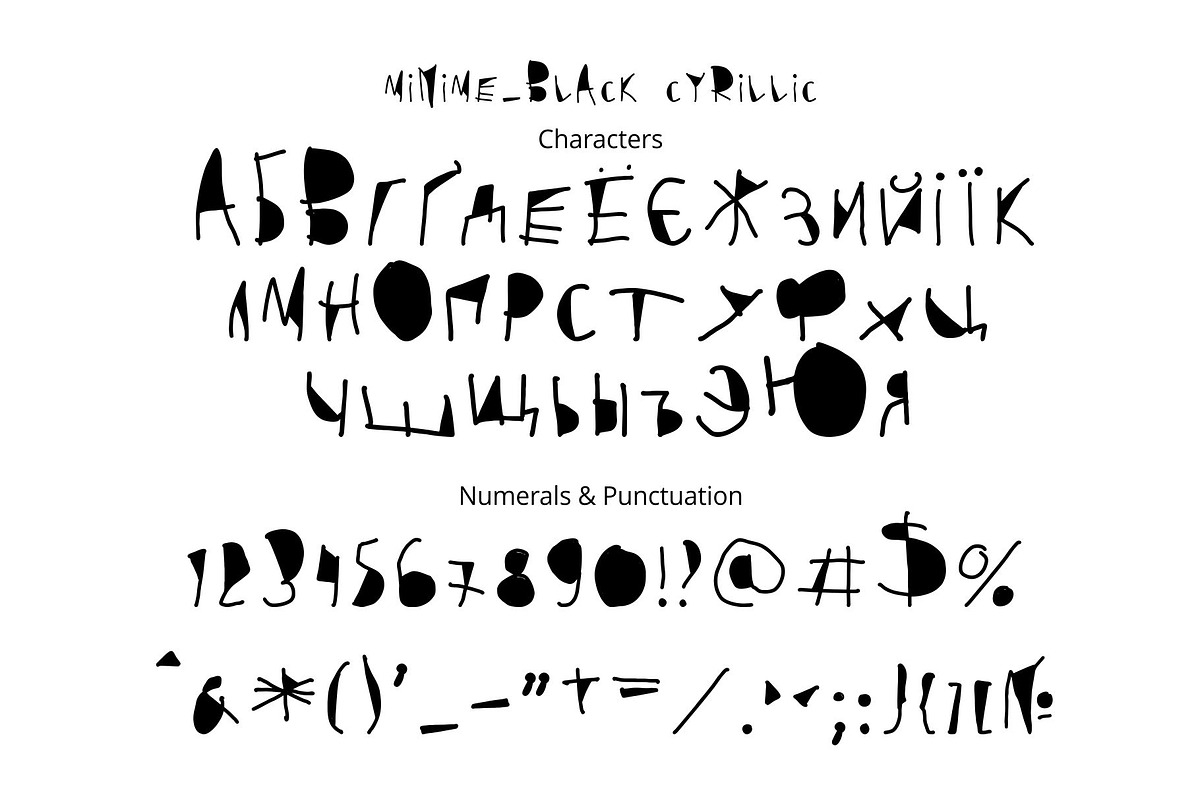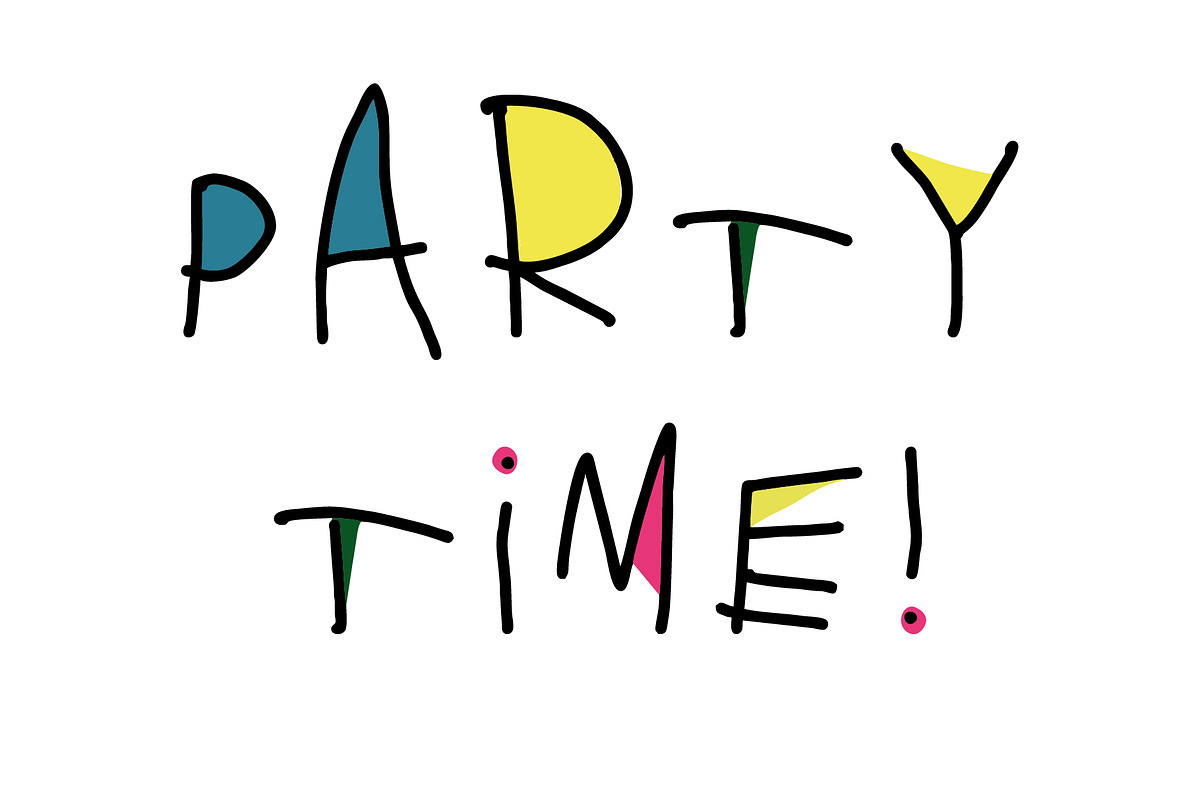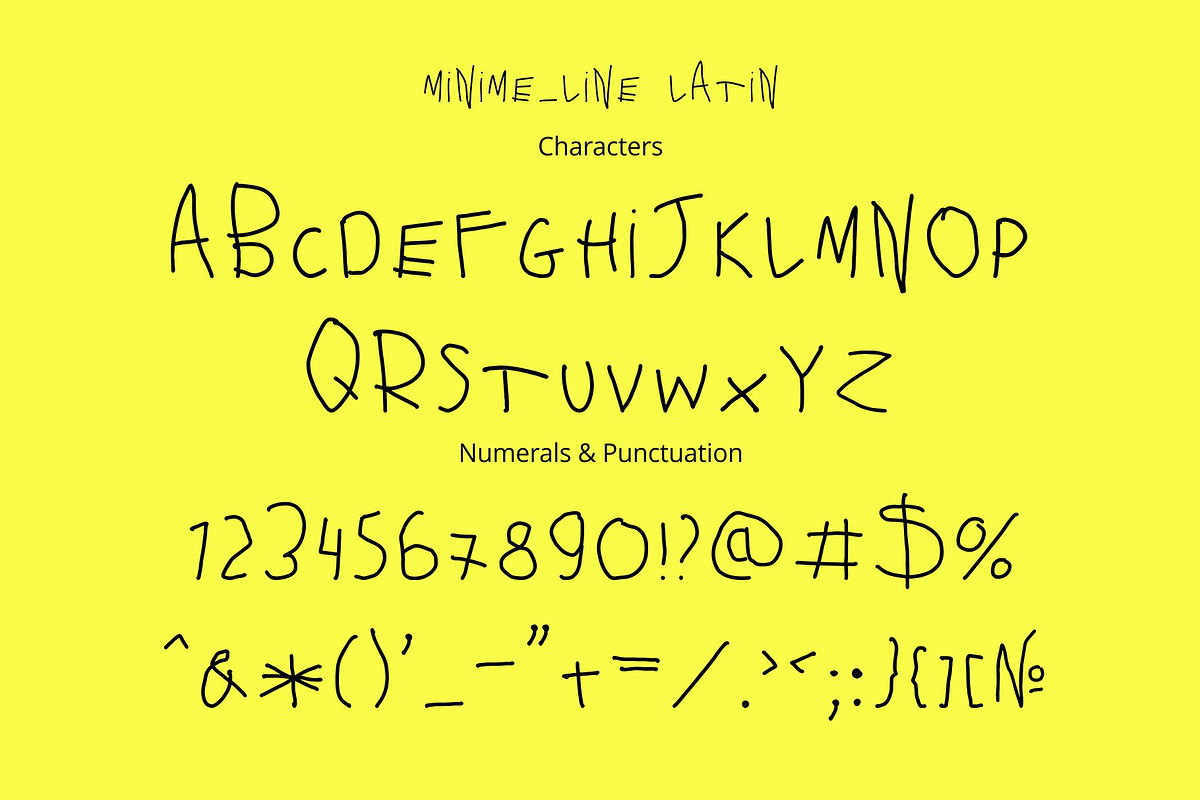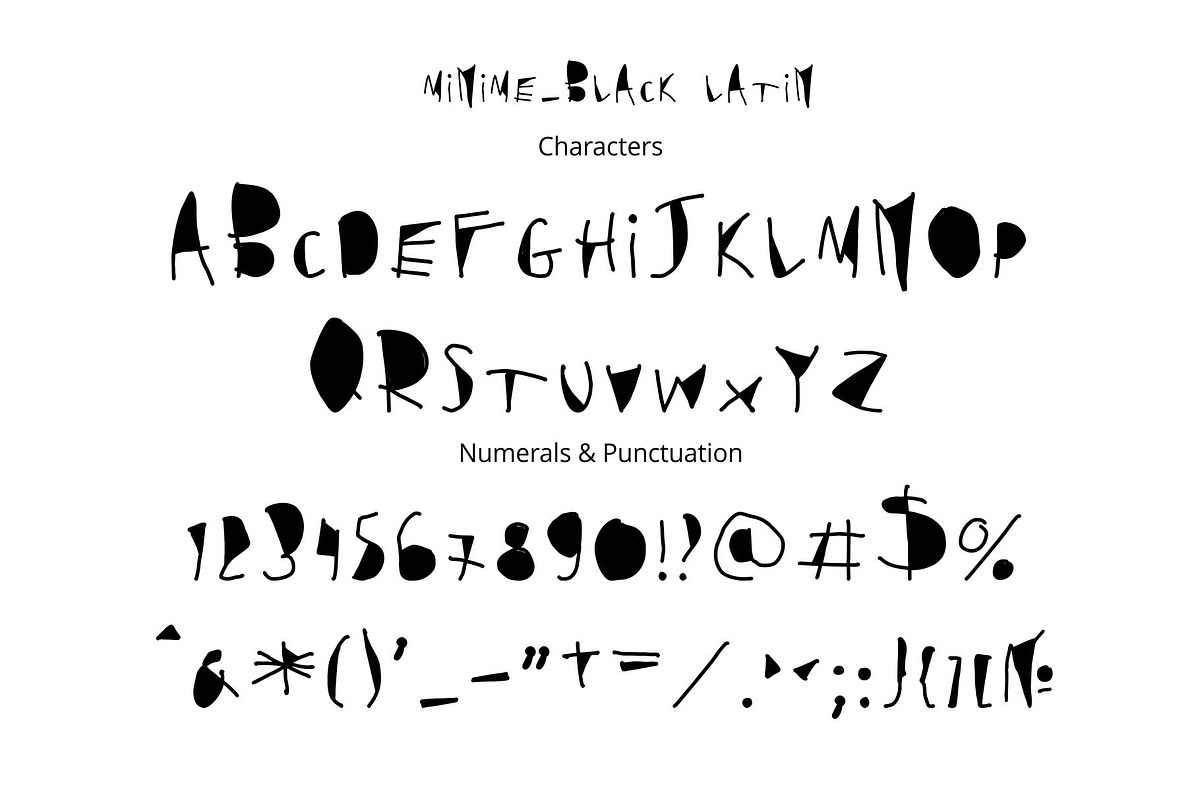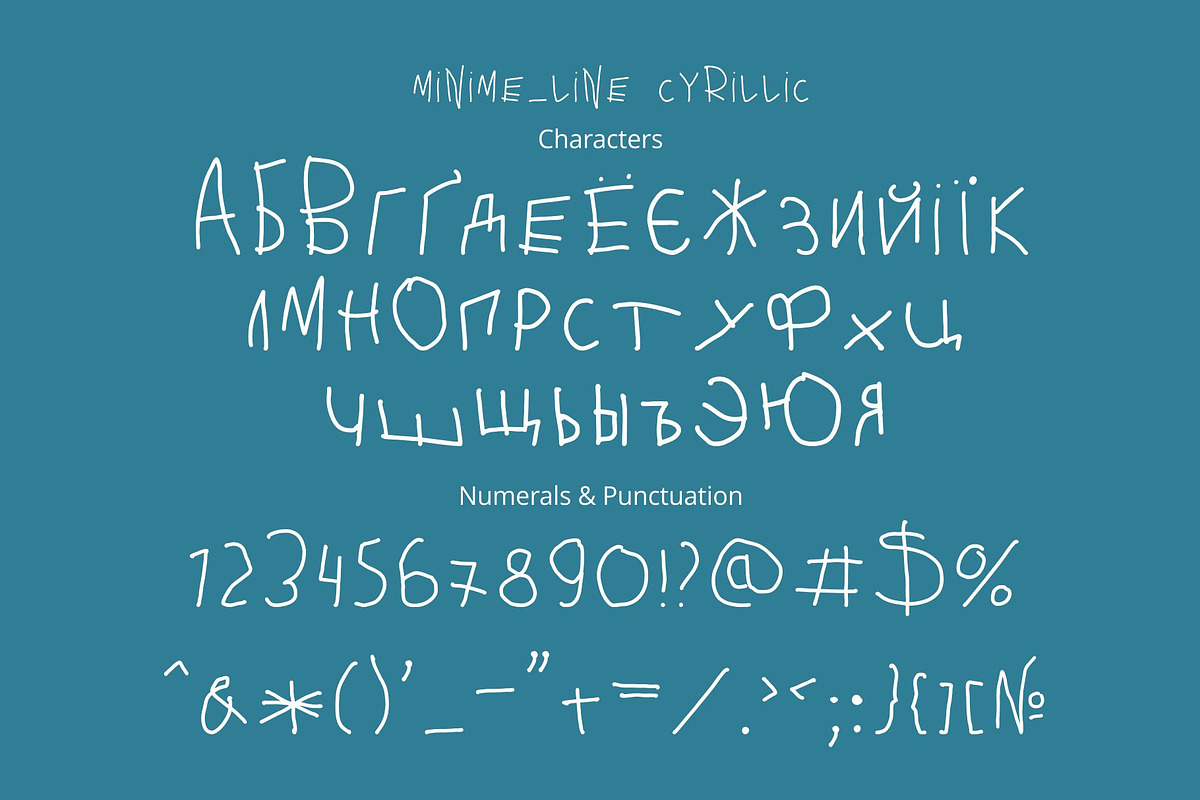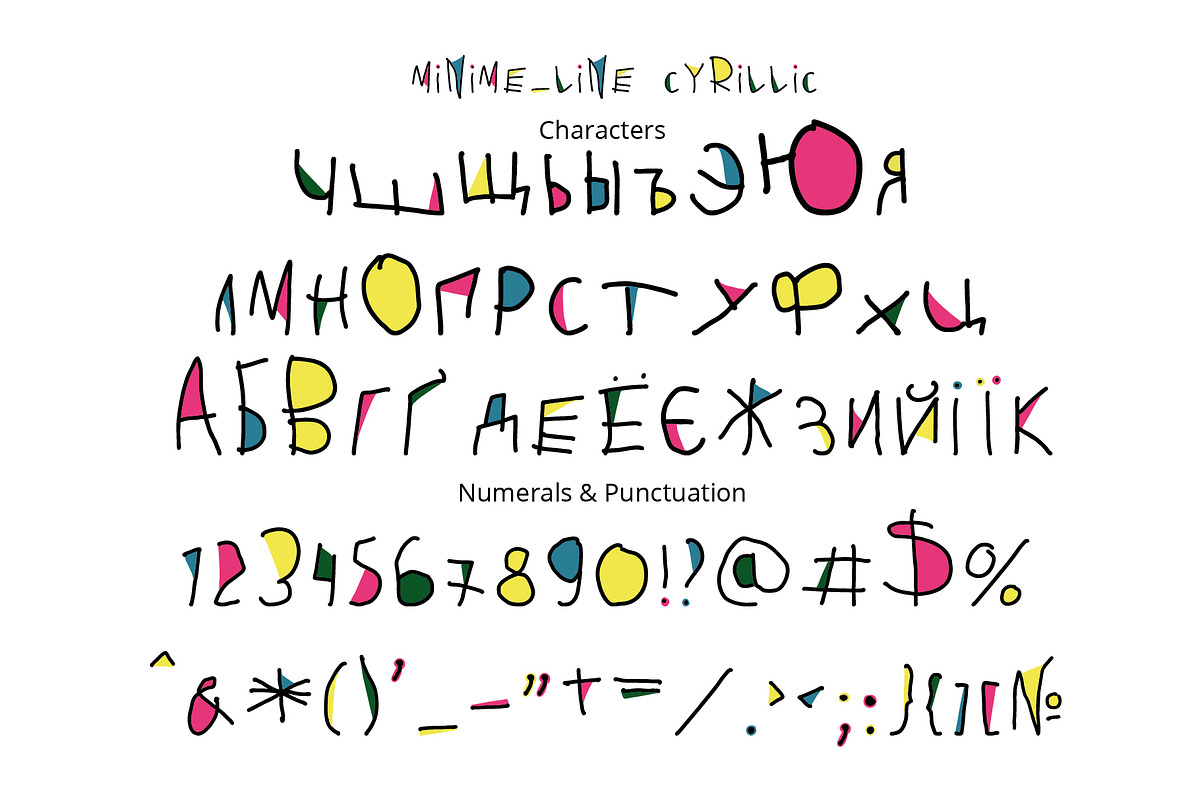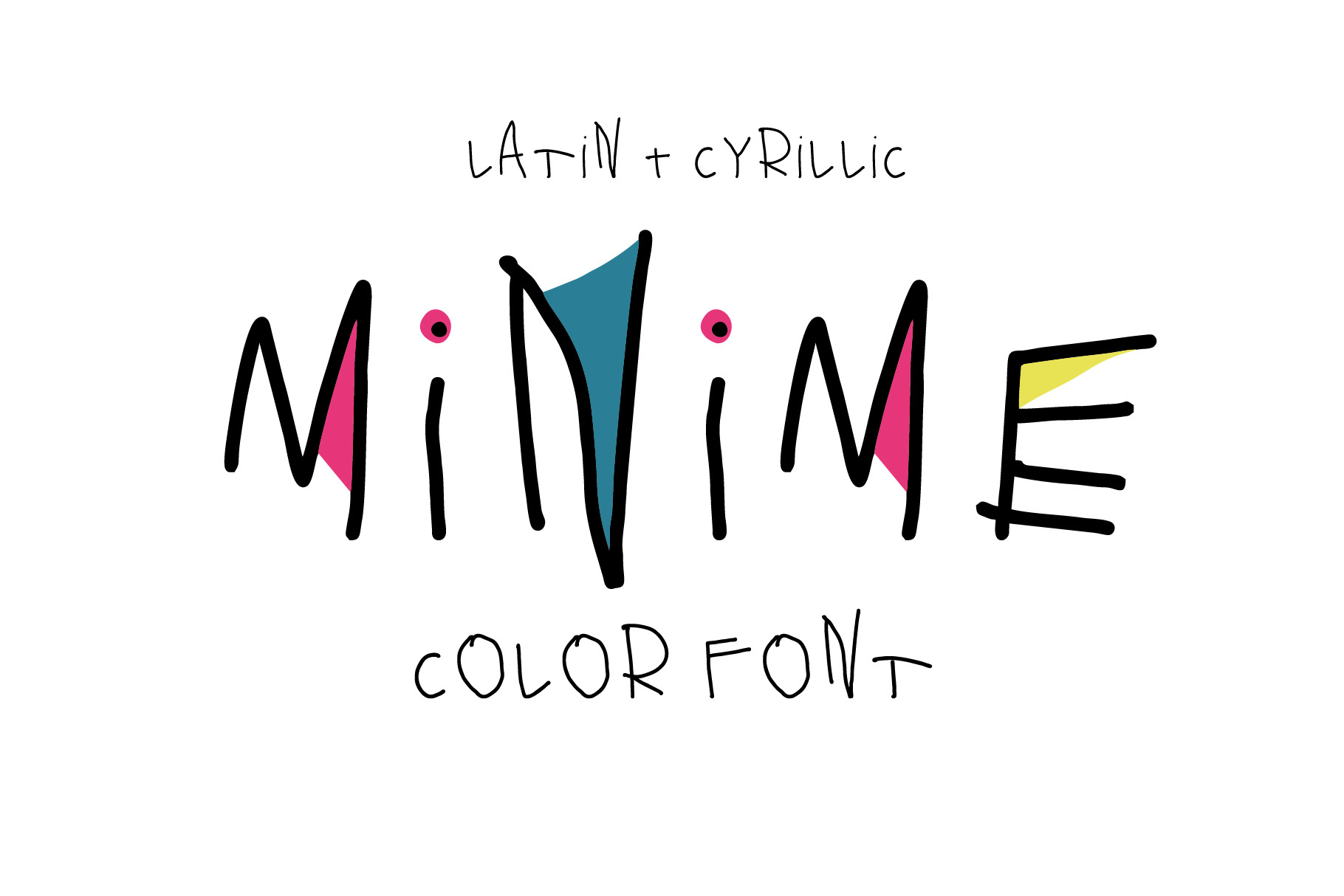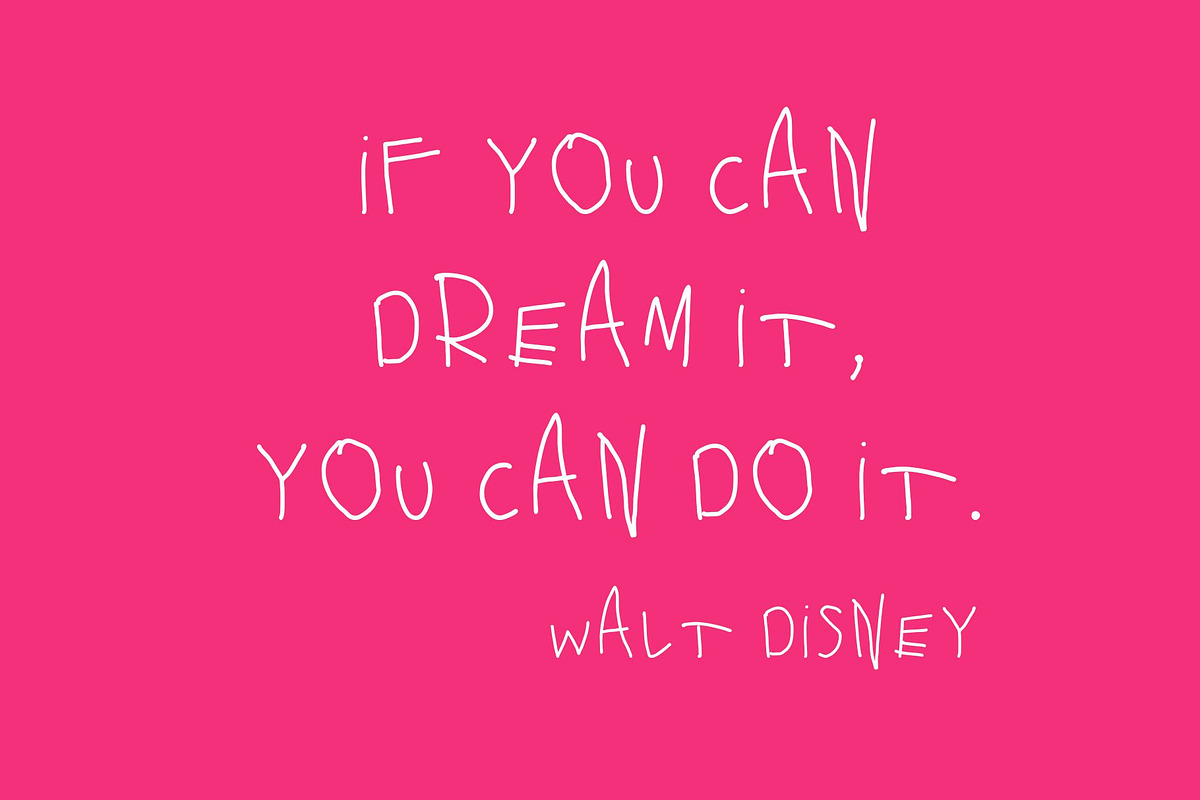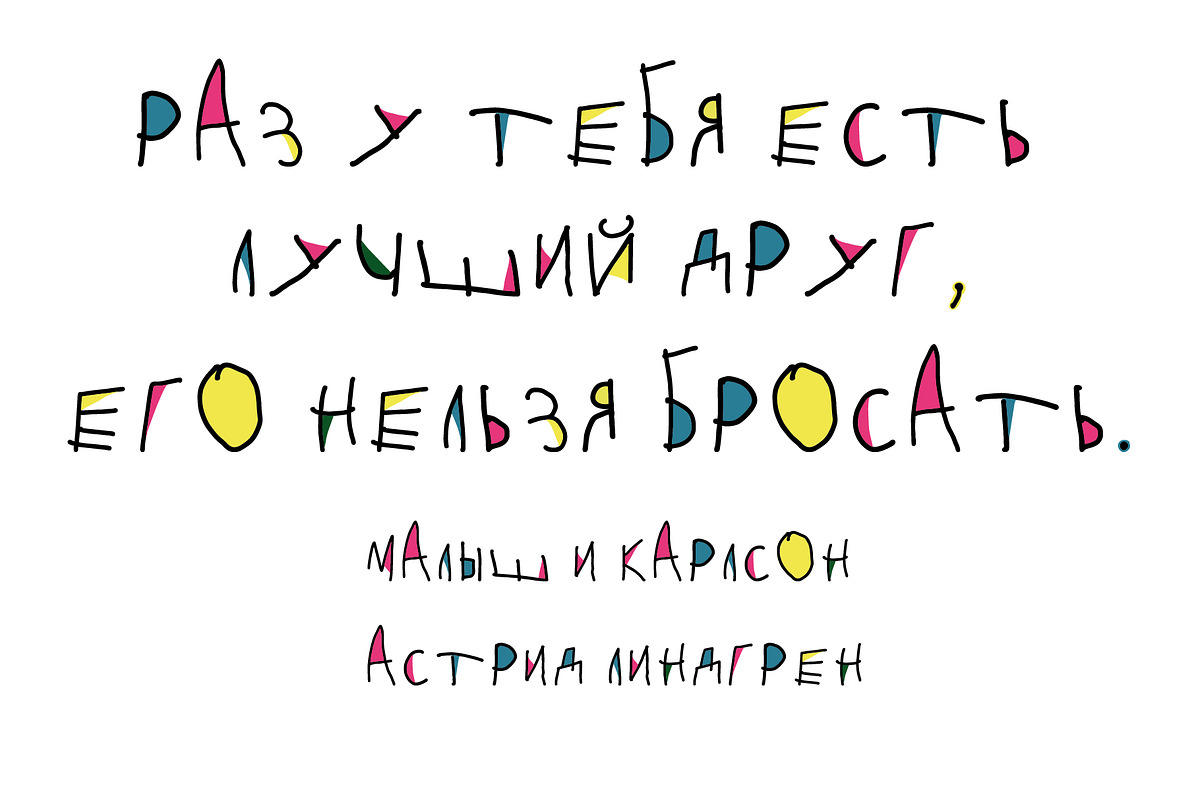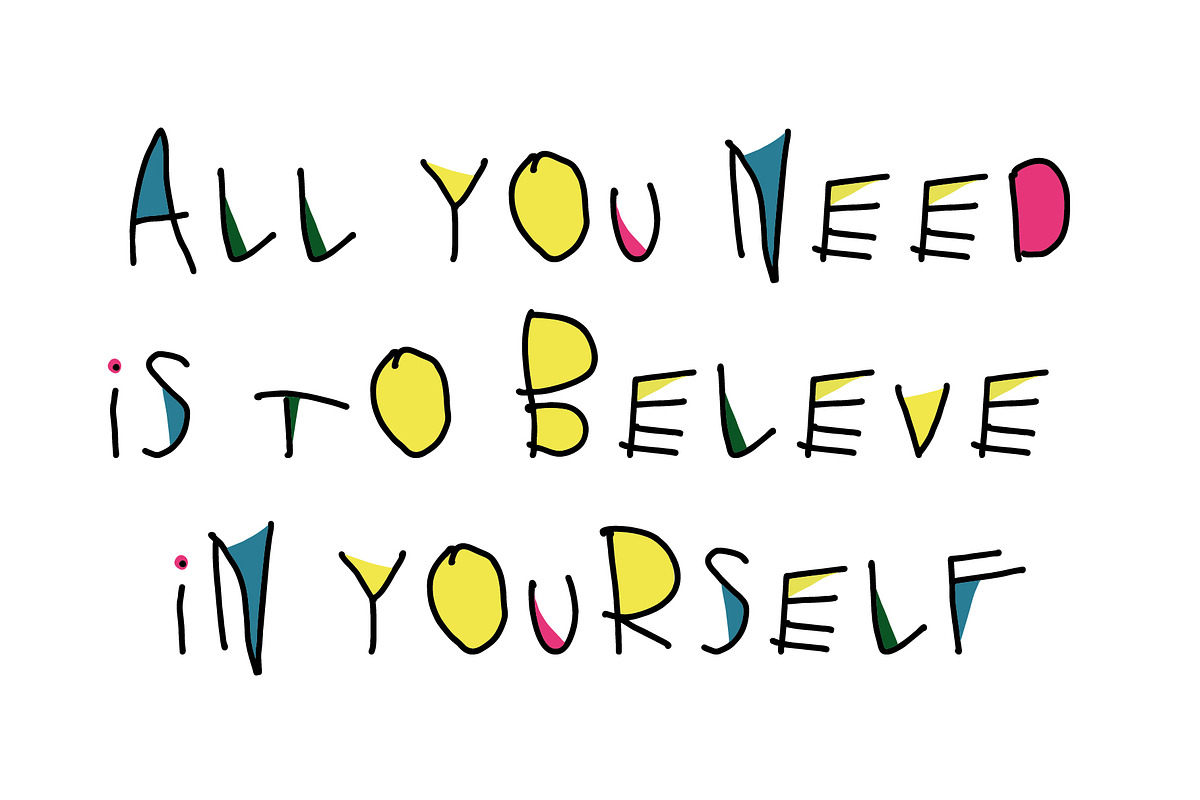
Minime color font
Minime - color OpenType-SVG font with Latin and Cyrillic letters! It's a fun and cute font! This font work nicely for all sorts of things including t-shirt design, typographic art, social media images and so much more!